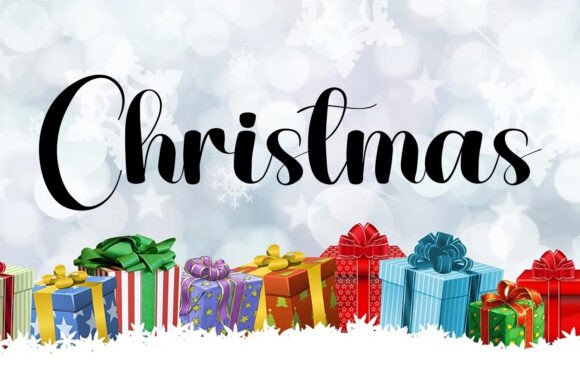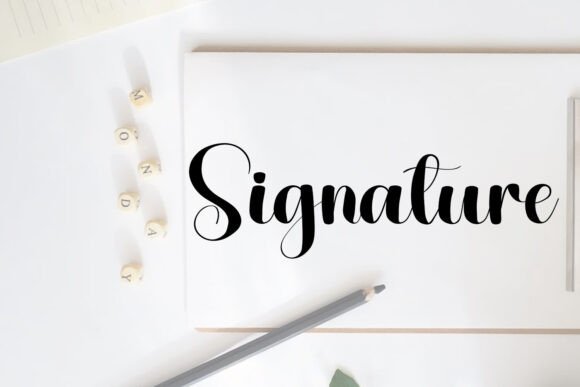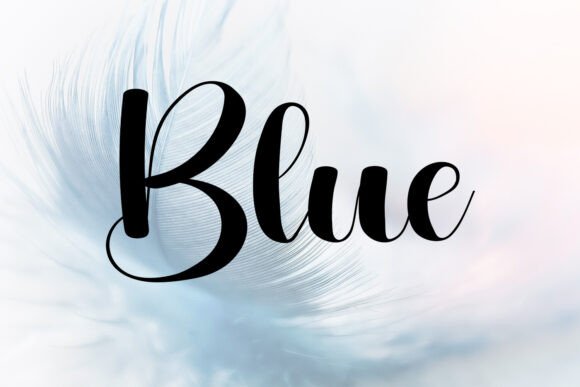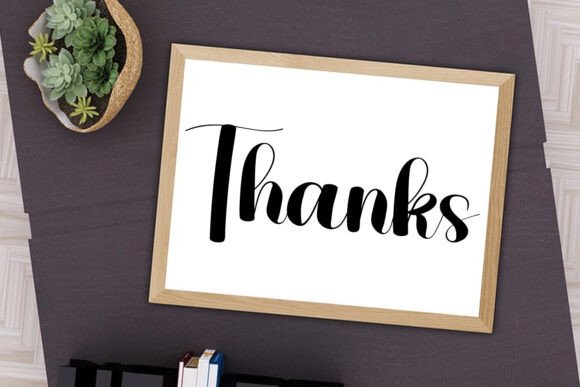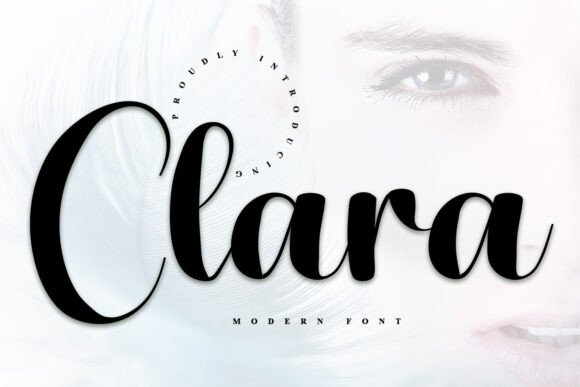
Discover the Elegance of Clara Font: Elevate Your Designs with Simplicity and Creativity
In the vast universe of typography, where fonts are the silent ambassadors of brand identity, Clara Font emerges as a beacon of freshness and aesthetic appeal. This beautifully crafted typeface is not just a font; it’s an invitation to transform your designs, whether personal or professional, with its unique blend of simplicity and creativity. Clara is more than a collection of letters; it’s a design statement that speaks of elegance, versatility, and innovation.
The Essence of Clara Font
At its core, Clara Font is designed to breathe life into a myriad of design applications. Its simplistic yet distinctive aesthetic ensures that it stands out in any context, be it on digital platforms like YouTube banners, in print with wedding invitations and ID cards, or in marketing materials such as flyer designs. Clara’s beauty lies in its ability to adapt and enhance, making it a valuable asset for designers and crafters looking to infuse their projects with a touch of sophistication.
Applications of Clara Font
- YouTube Banners: Make a lasting impression on your audience with a banner that exudes professionalism and style. Clara’s clear and elegant lines ensure your channel stands out.
- Wedding Invitations: Add a touch of romance and elegance to your wedding invitations. Clara’s beauty shines through, making your special moment even more memorable.
- ID Cards: For businesses and events, Clara offers a crisp and professional look, essential for creating a good first impression.
- Flyer Designs: Whether you’re advertising an event, a product, or a service, Clara can help your message stand out with its fresh and engaging aesthetic.
- Crafts: For crafters, Clara offers endless possibilities. From handmade cards to DIY projects, this font can add a personal and professional touch.
Why Choose Clara Font?
Choosing Clara Font for your design projects comes with numerous benefits. Here are a few reasons why Clara should be at the top of your font choices:
- Versatility: Clara’s design ensures it can be used across various platforms and applications, from digital to print.
- Elegance: Its simplistic yet unique aesthetic brings an air of elegance to any design.
- Creativity: Clara encourages creativity, allowing designers to explore new and innovative design solutions.
- Brand Identity: For businesses, Clara offers a way to underscore your brand’s identity with a progressive and forward-thinking approach.
Embracing Clara for Your Design Needs
Embracing Clara Font is not just about selecting a font; it’s about making a design statement. It’s about choosing a path that leads to creativity, elegance, and a strong brand identity. Whether you’re a professional designer looking to elevate your projects or a business aiming to make a mark, Clara is your partner in design.
In a world where design is a critical component of communication, Clara Font stands as a beacon of simplicity and creativity. It’s a reminder that sometimes, the simplest designs hold the most power. Clara isn’t just a font; it’s a tool for expression, a means to convey your message with elegance and impact.
So, why wait? Dive into the world of Clara Font today and discover how this beautifully crafted typeface can transform your designs. Whether you’re crafting a brand’s identity or bringing a personal project to life, Clara is ready to help you make your mark.
Clara Font – Where simplicity meets creativity!